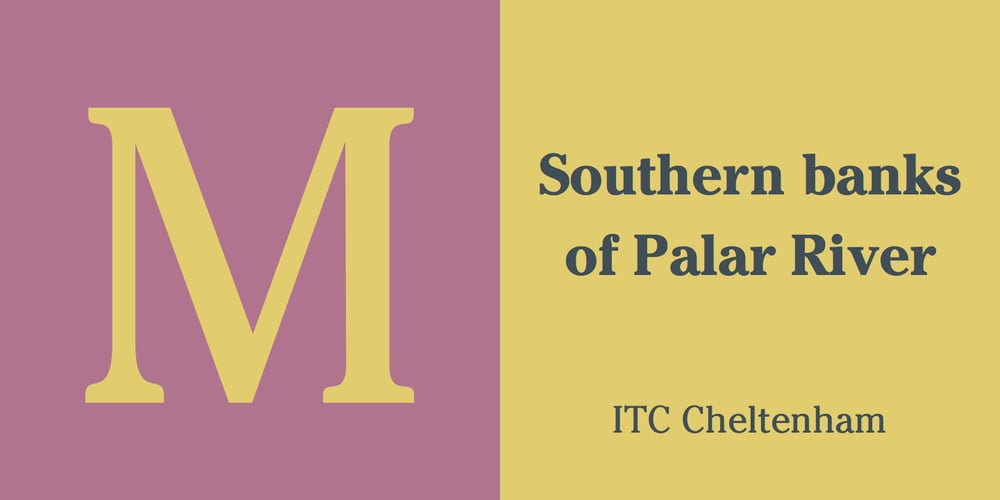
ITC Cheltenham Font Family was designed by Tony Stan and published by ITC. ITC Cheltenham contains 16 styles and family package options. ITC Cheltenham font in its present form is the work of designer Tony Stan. Originally designed by architect Bertram Goodhue, it was expanded by Morris Fuller Benton and completed by Stan in 1975 with a larger x-height and improved italic details. ITC Cheltenham font is an example of an up-to-date yet classic typeface. In 1993 Ed Benguiat added the Handtooled weights to this family.ITC Cheltenham® font field guide including best practices, font pairings and alternatives.